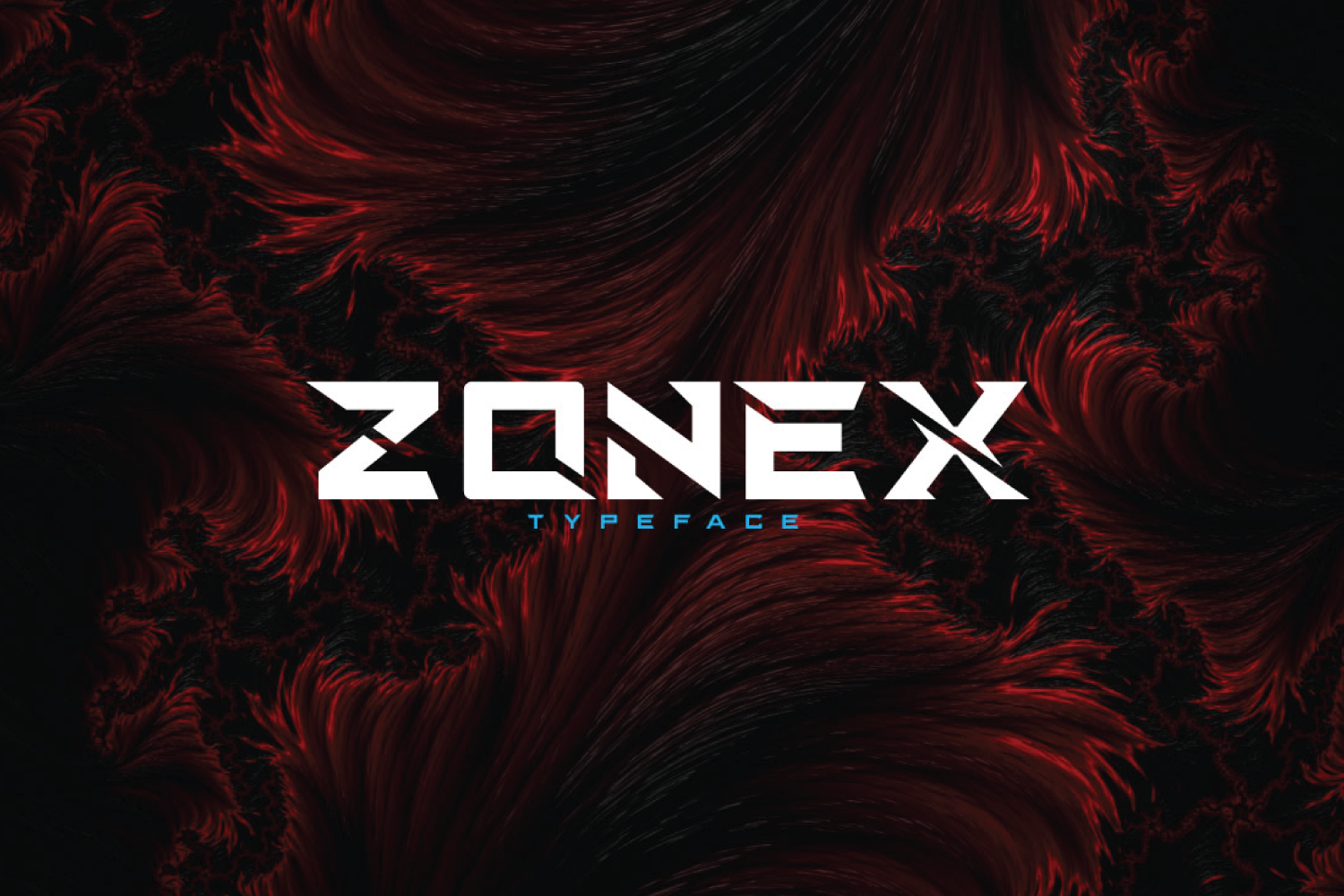
Zonex - Futuristic Font
Zonex font is a sans-serif typeface with minimal, modern,and futuristic style. This typeface is available in all caps only with stylistic alternates feature plus supports multilingual languages. This font is appropriate for your branding, logo design, shirts, etc.
- Zonex- A clean San serif font including Upper & Lowercase characters(ALL CAPS)
- Numbers and Punctuation
- Multilingual Support (Latin Western Europe)